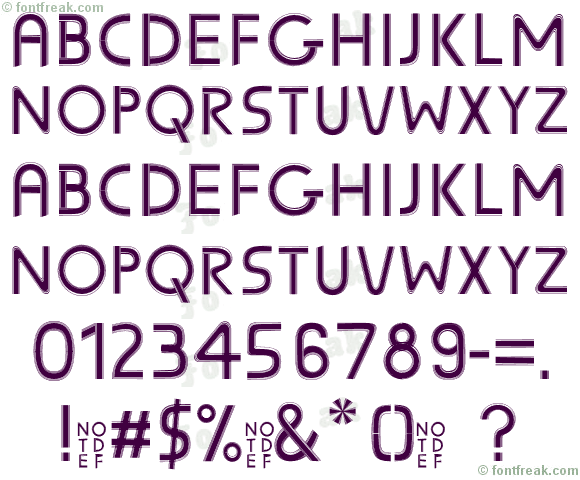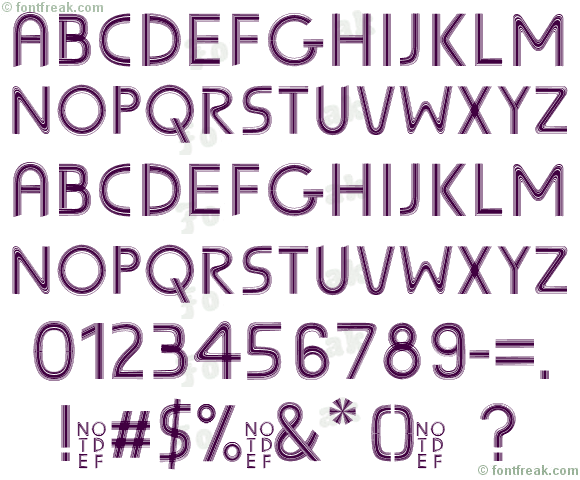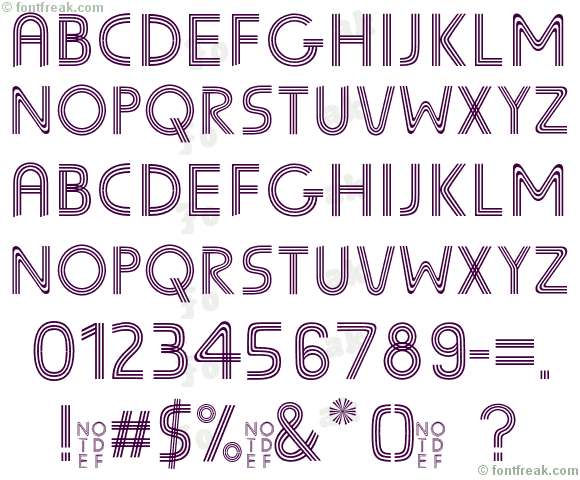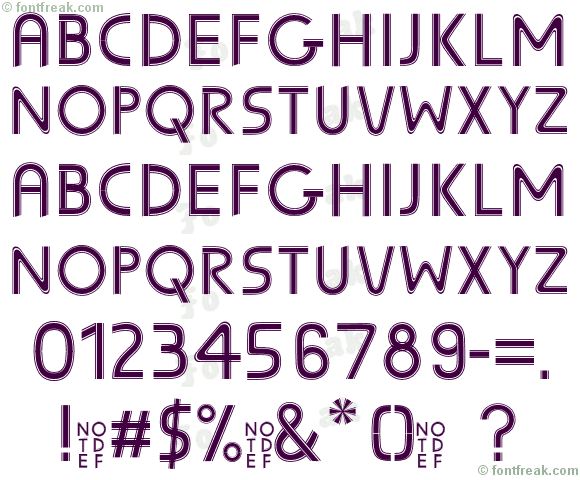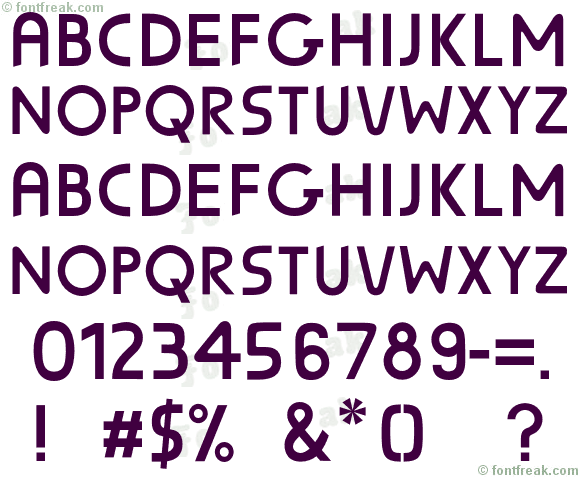
Sunscreen-Septaline
Sunscreen-Pentaline
Sunscreen-Triline
Sunscreen-Unscreened
Sunscreen-TrilineEqual
Sunscreen-Septaline is a striking display font designed by Simon Cozens, known for its unique blend of modern aesthetics and playful charm. This font falls into the decorative category, making it an excellent choice for projects that require a bold visual statement. The font features a distinctive stroke weight that balances between thick and thin lines, creating a sense of dynamism. Its moderate contrast adds depth without overwhelming the viewer, while the carefully crafted spacing ensures legibility, even in larger text sizes. The decorative elements of Sunscreen-Septaline, characterized by its vibrant and energetic design, make it particularly eye-catching.
This font is ideal for a variety of creative applications. It can elevate wedding invitations with its whimsical appeal, making special occasions feel even more personalized. Movie posters can benefit from its bold presence, grabbing attention and setting the tone for the film. Restaurant menus, especially for eateries with a casual or trendy vibe, can utilize Sunscreen-Septaline to enhance their branding and attract diners. Additionally, this font is perfect for social media graphics and marketing materials, allowing content creators to make a memorable impact.
What sets the Sunscreen-Septaline font apart is its ability to blend fun with functionality. Its unique design captures attention while remaining versatile enough for various applications, making it a valuable addition to any designer's toolkit. For anyone looking to enhance their projects with a fresh and lively typeface, the Sunscreen-Septaline font free download is an opportunity not to be missed.